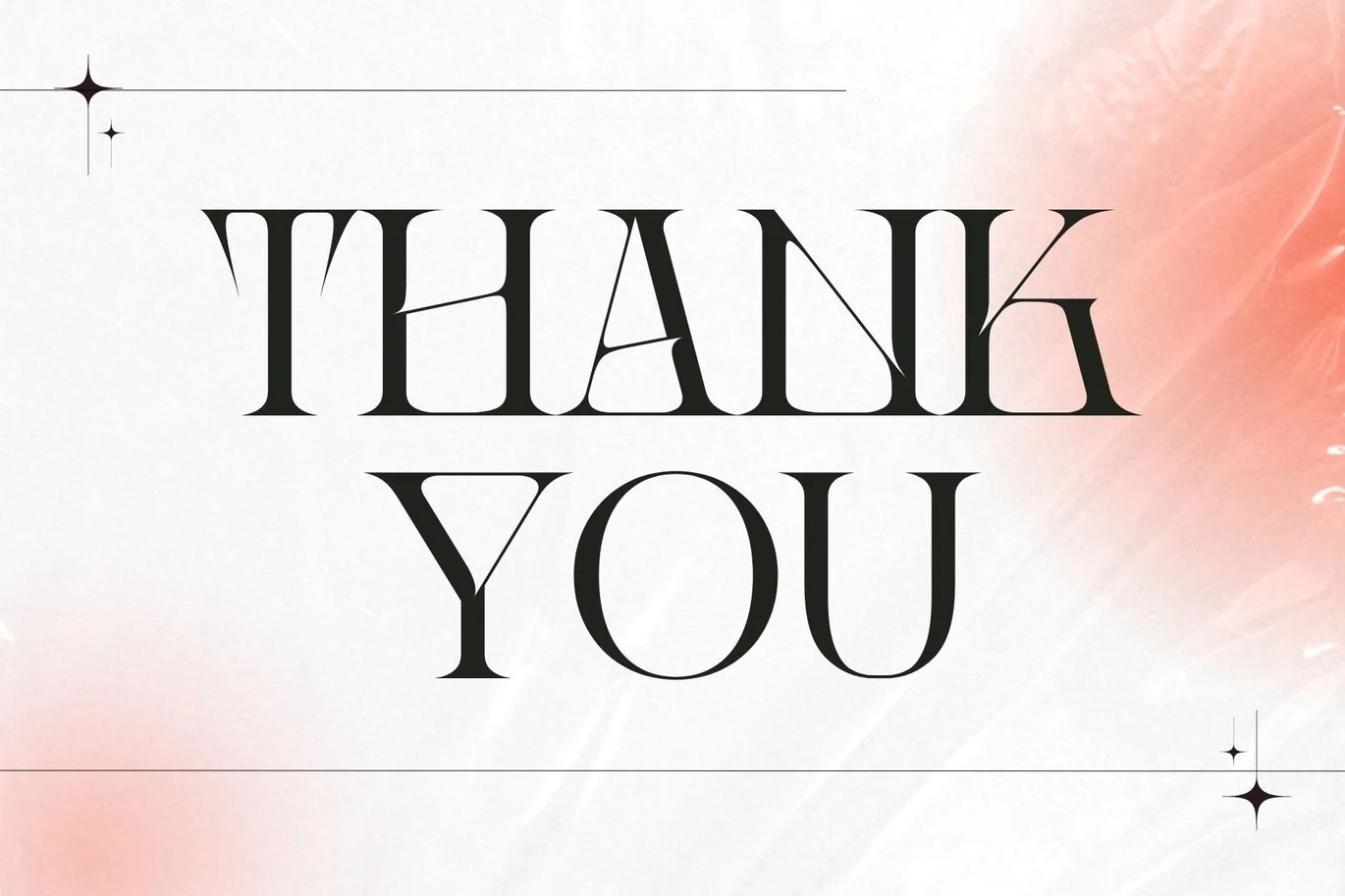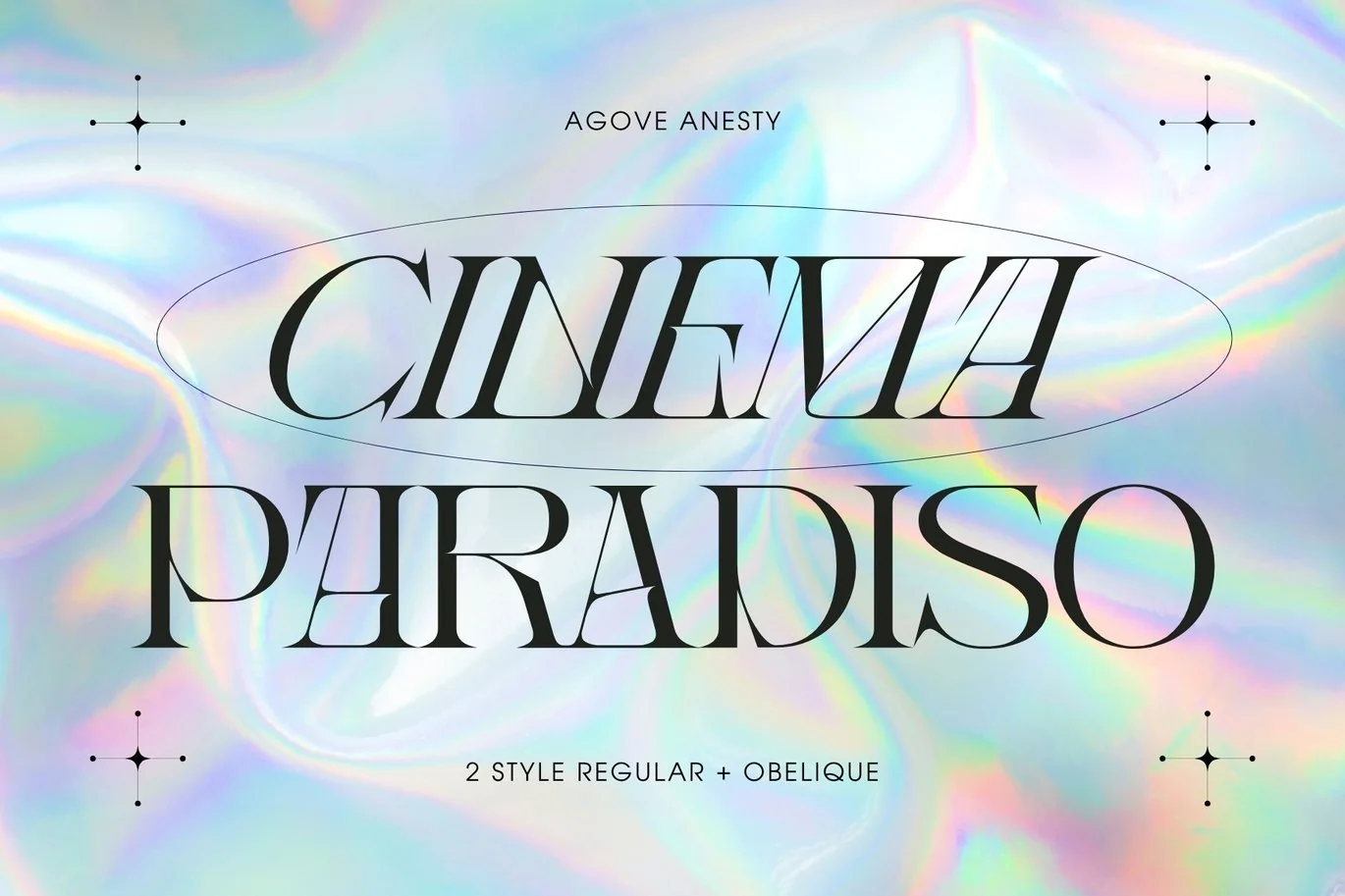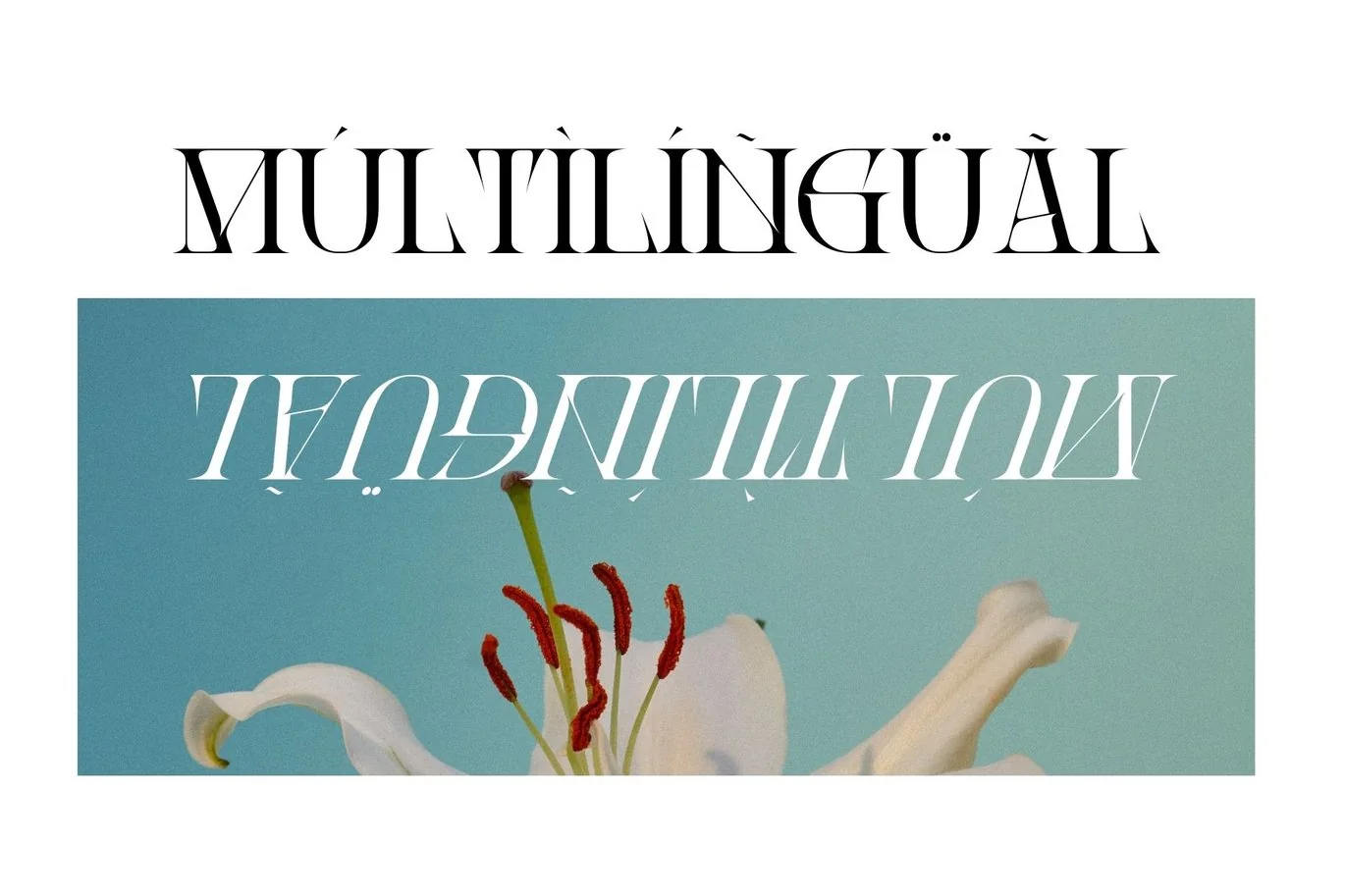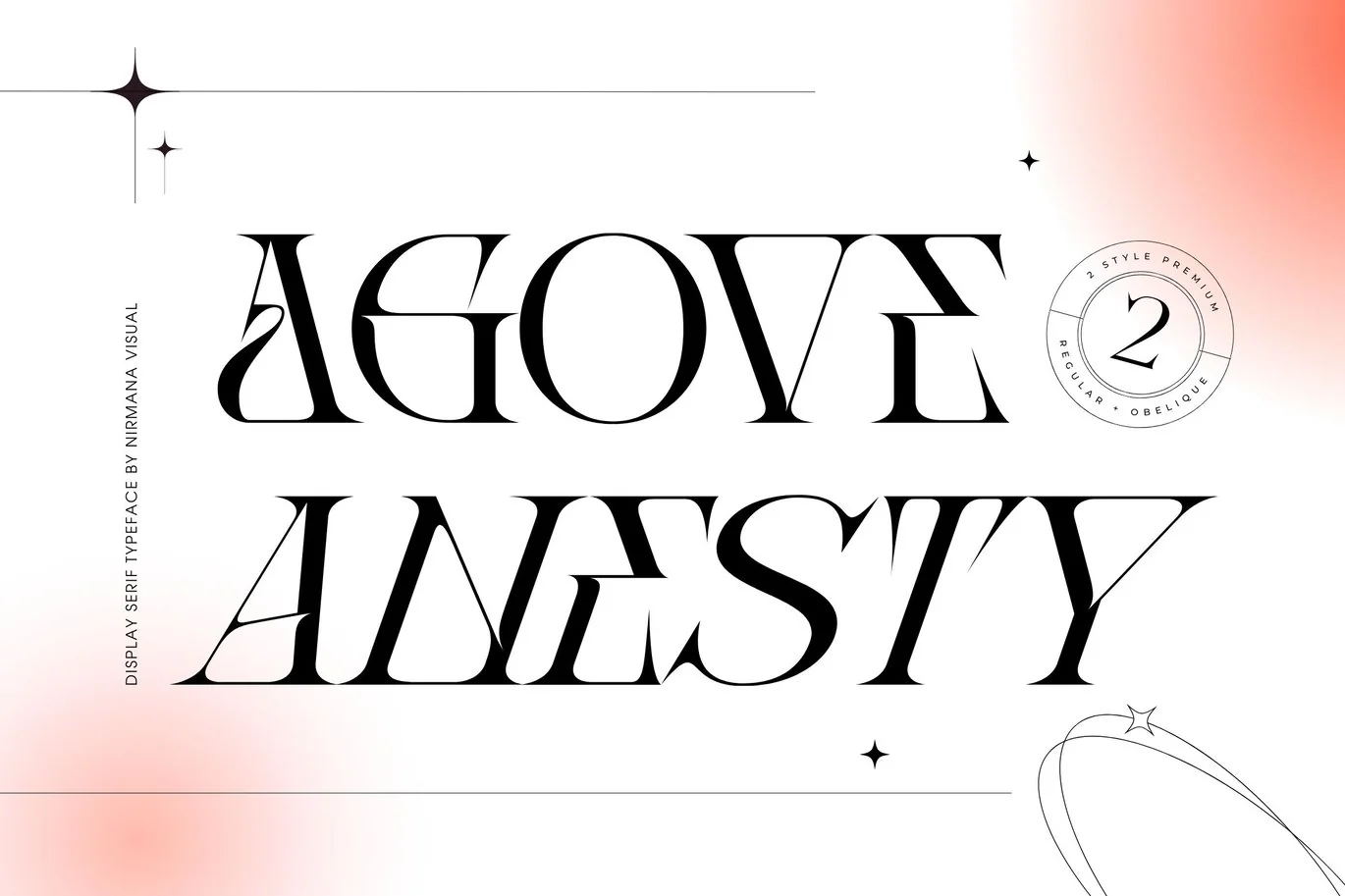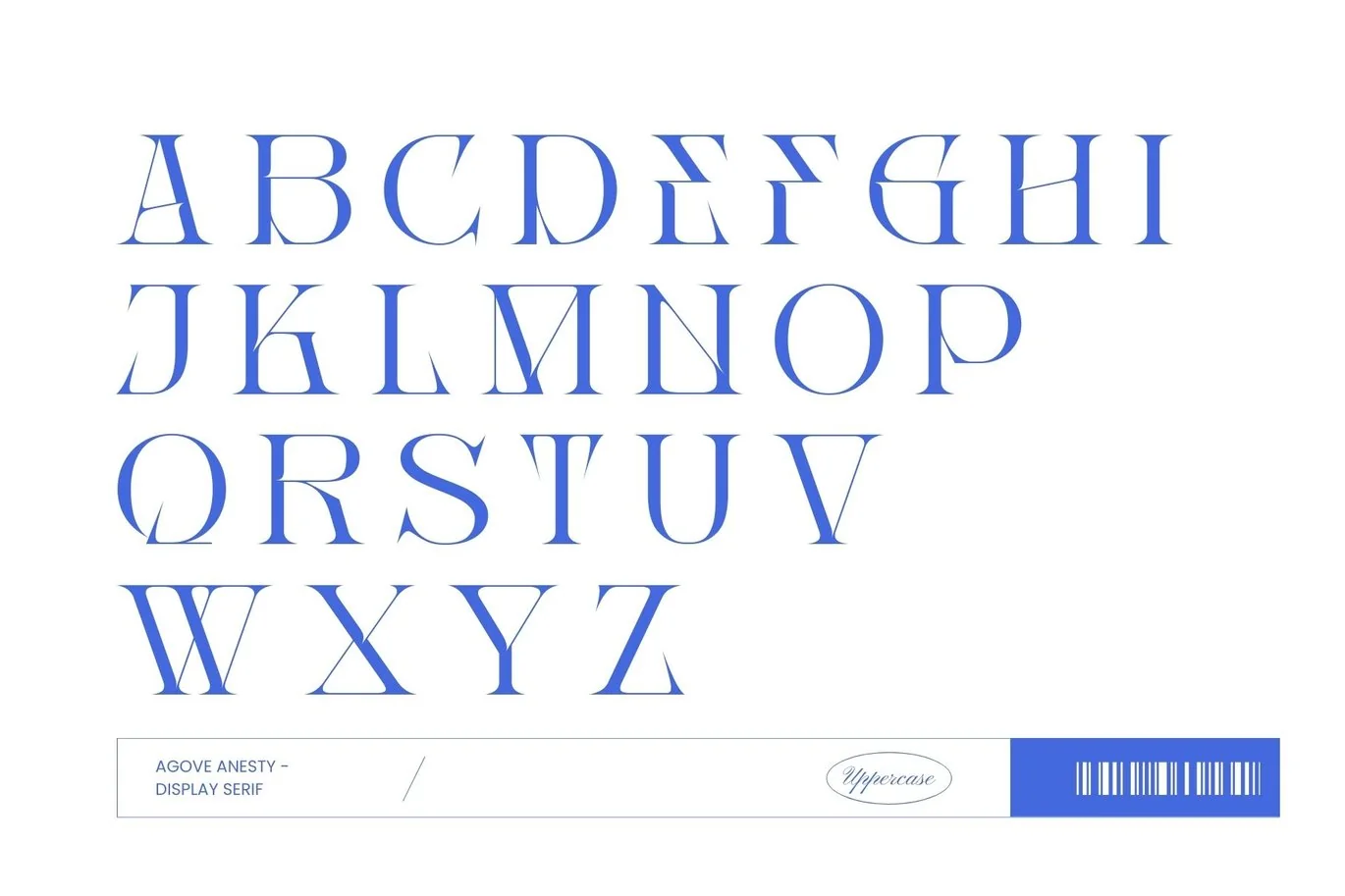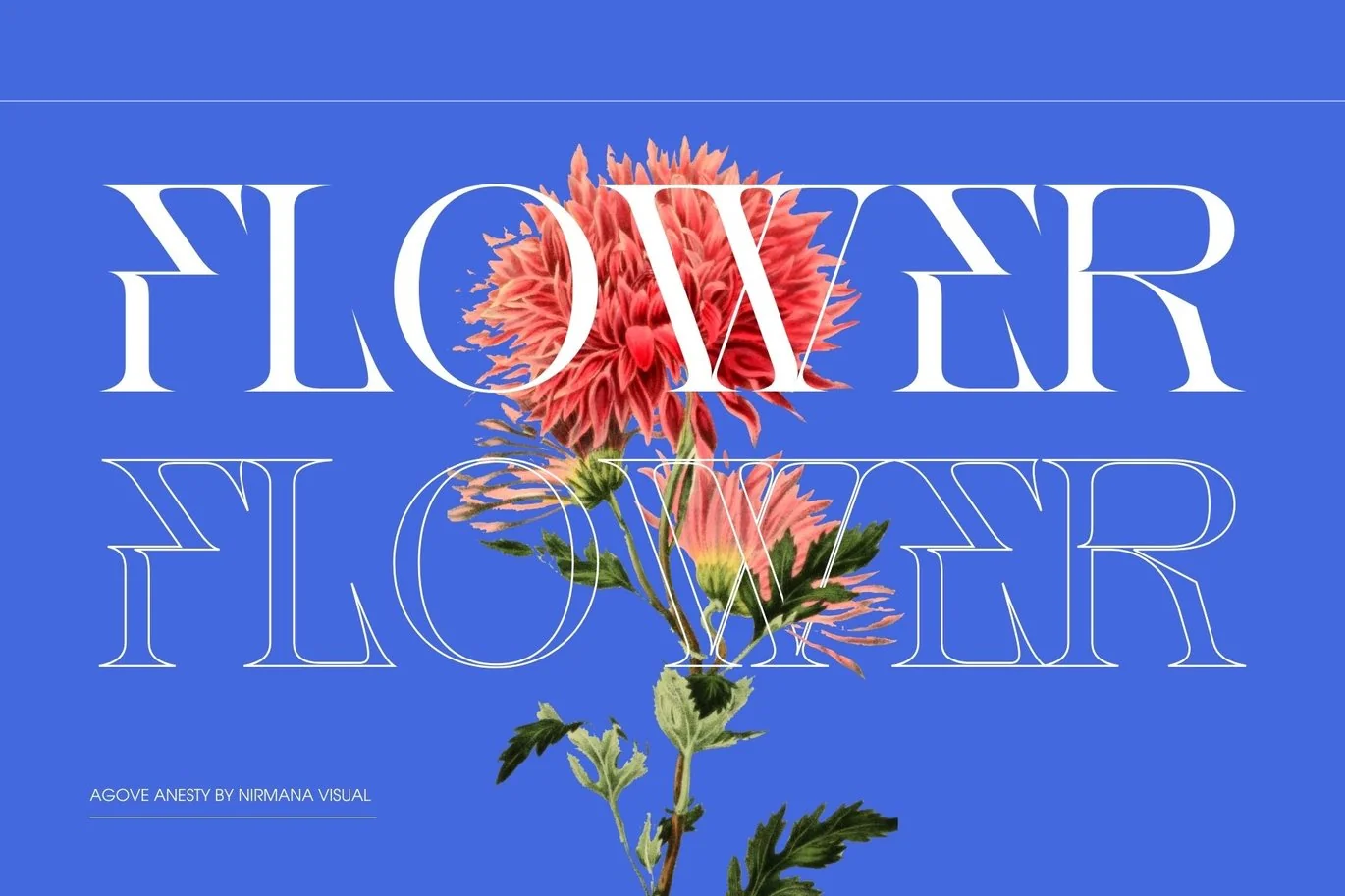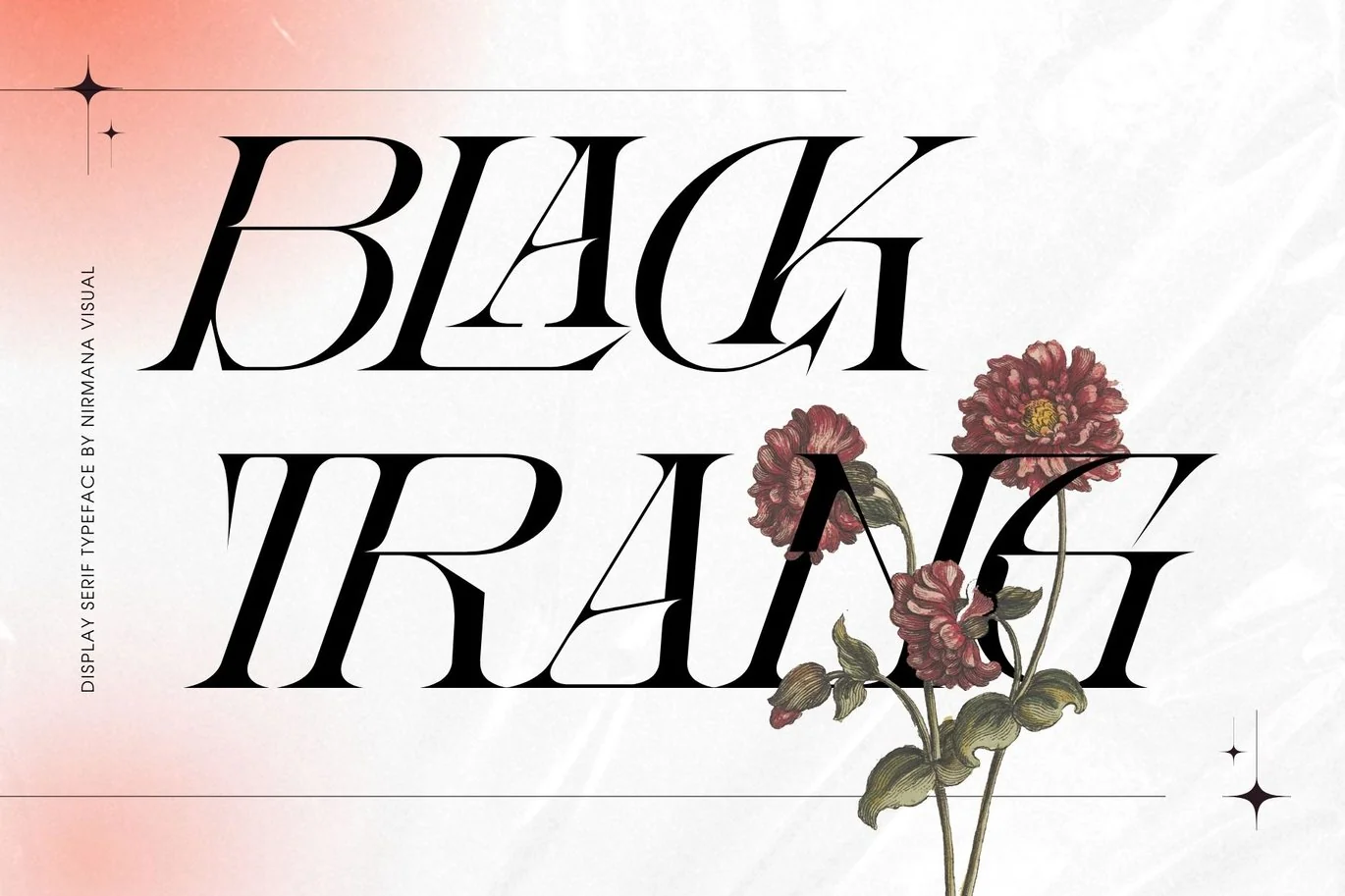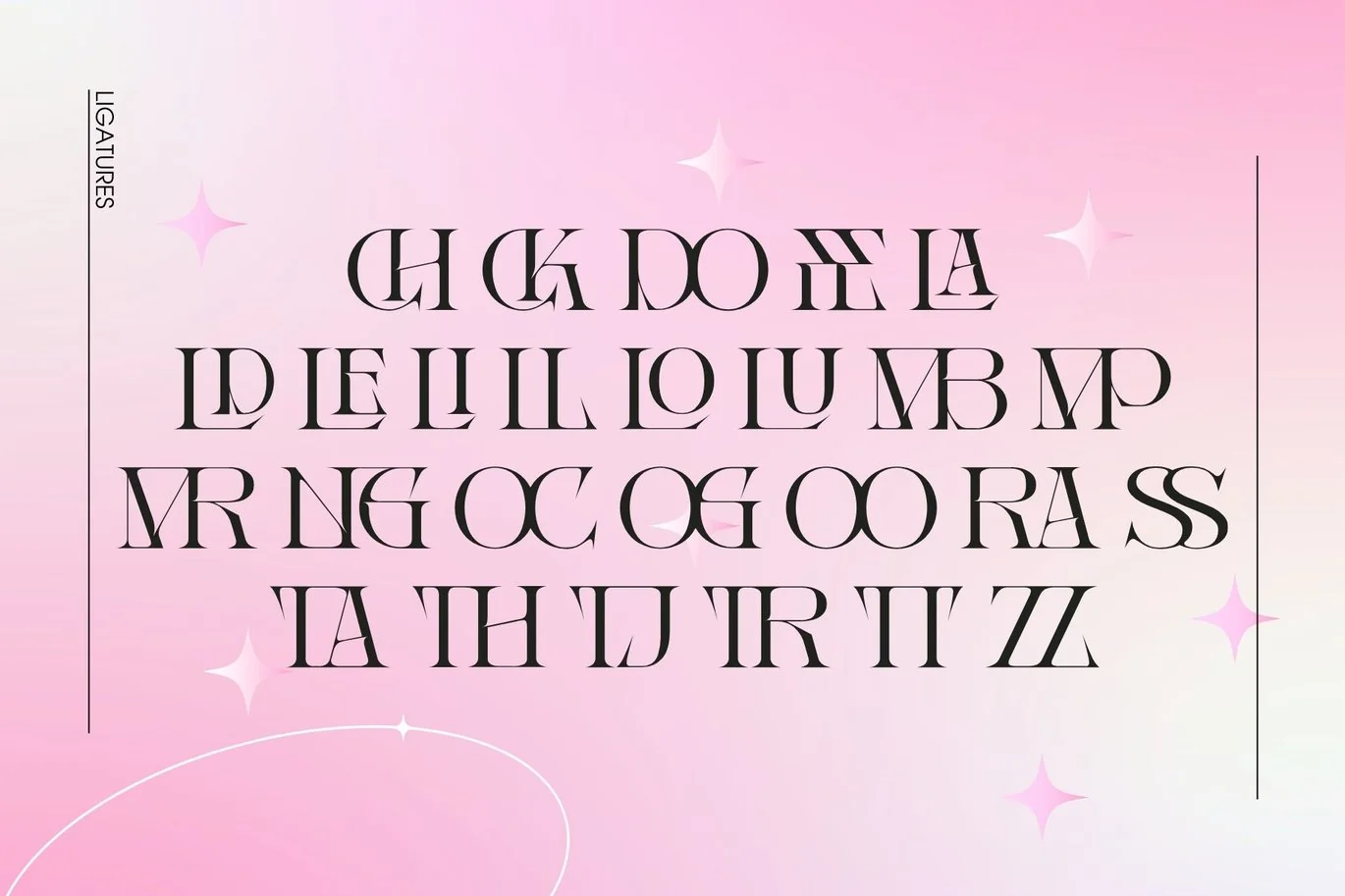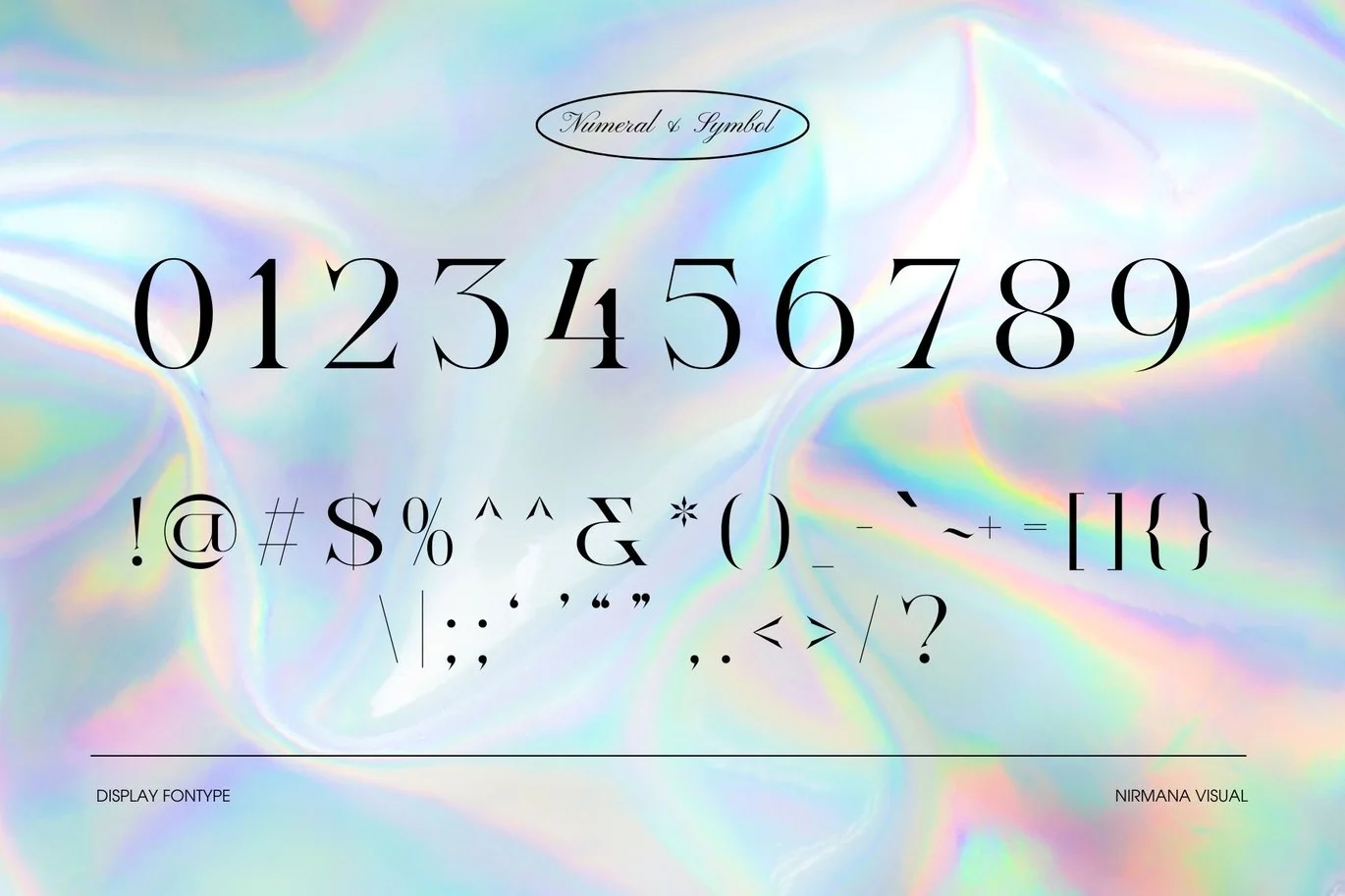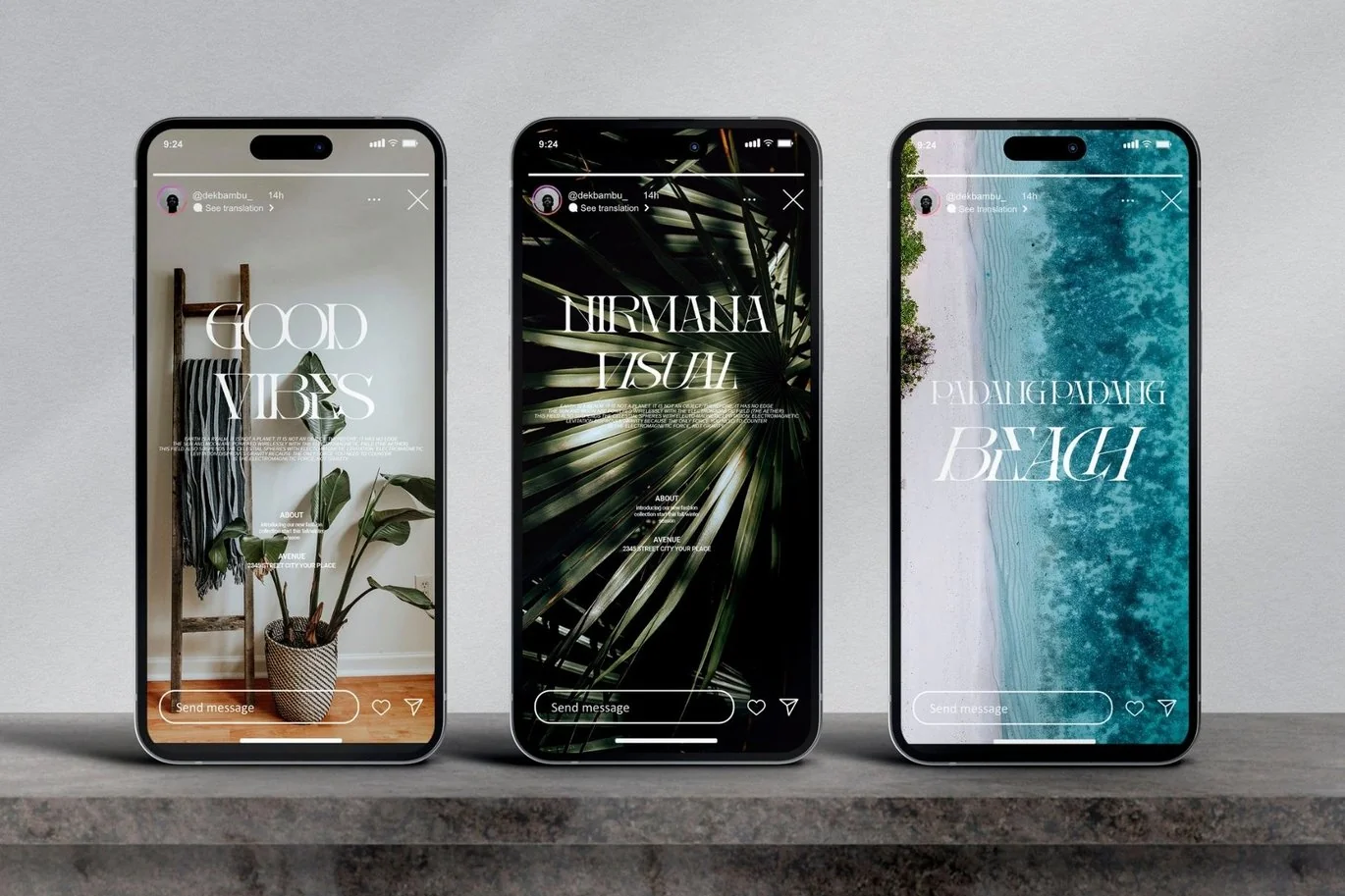
Agove Anesty – Luxury Font
Agove Anesty – Luxury Font offers beautiful typographic harmony for a diversity of design projects, including logos & branding, social media posts, advertisements & product designs.